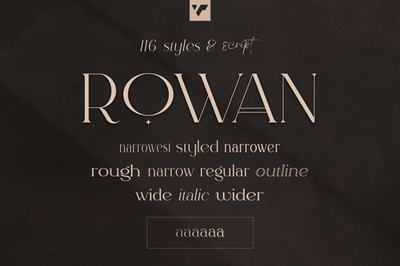
Rowan typeface – 116 styles & script
Introducing Rowan – Elegant typeface. 116 font styles included and 1 script
Rowan is elegant and retro typeface loaded with 116 font styles (narrowest, narrower, narrow, regular, wide, wider, rough, outline and script with 6 weights) 87 languages support, alternate and ligature glyphs to make you typography truly unique!
- Uppercase, lowercase, numeral, punctuation & Symbol
- ligature glyphs
- alternates
- Narrowest – regular, italic and styled with 6 weights
- Narrower – regular, italic and styled with 6 weights
- Narrow – regular, italic and styled with 6 weights
- Regular – regular, italic and styled with 6 weights
- Wide – regular, italic and styled with 6 weights
- Wider – regular, italic and styled with 6 weights
- 1 script
- 2 rough styles
- 6 outline fonts
- Multilingual support – 87 languages